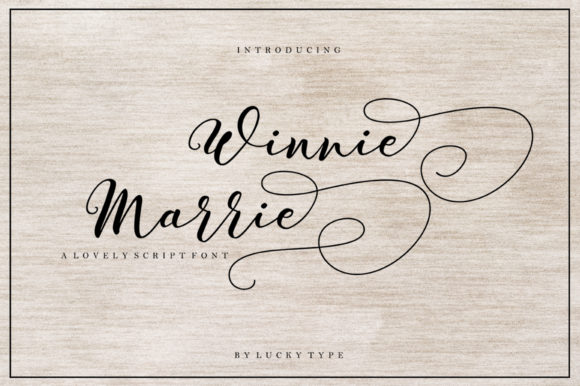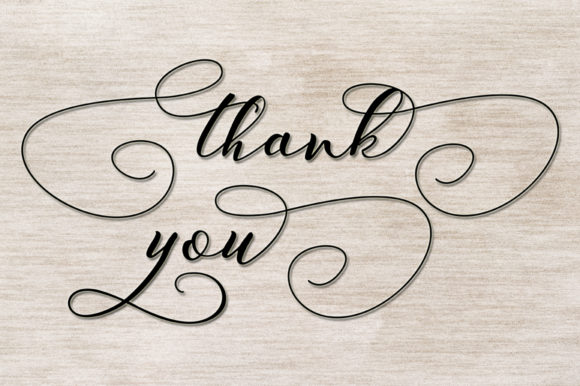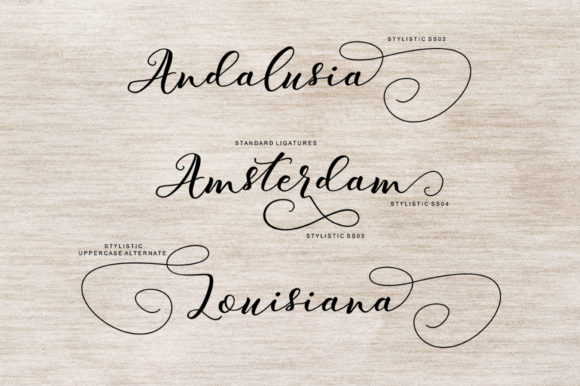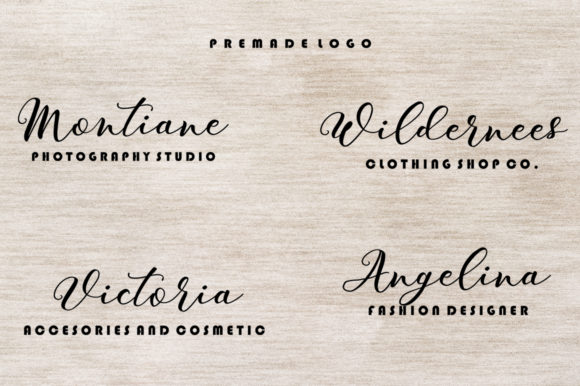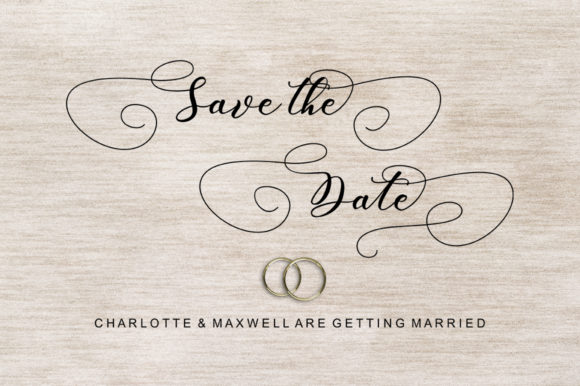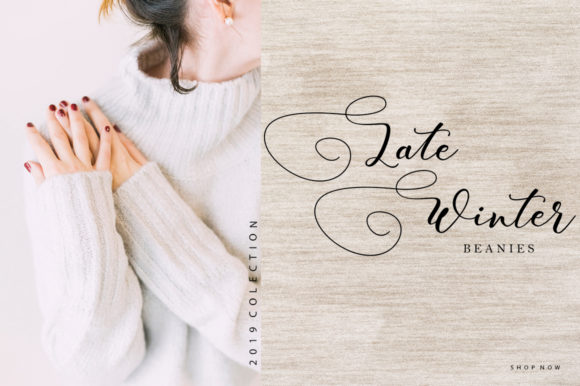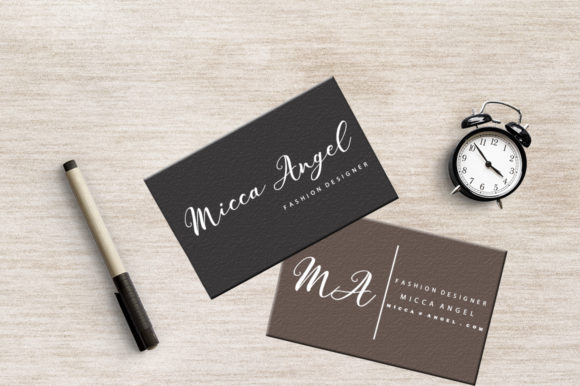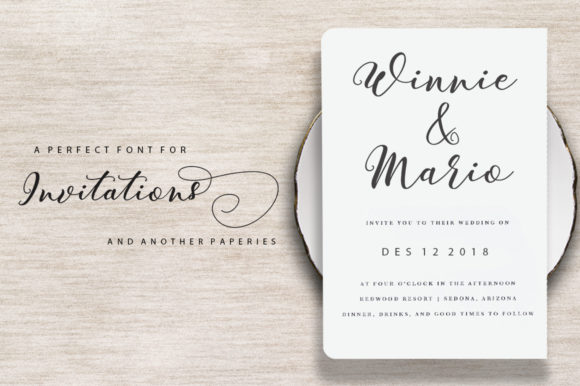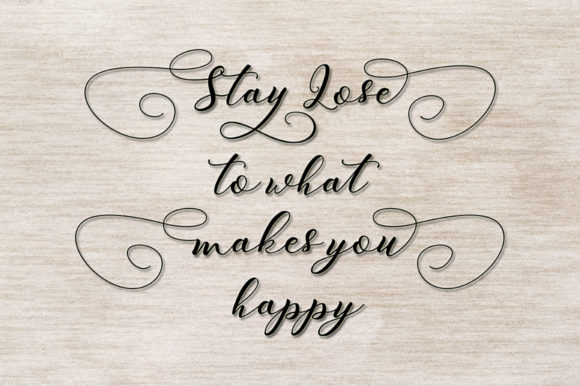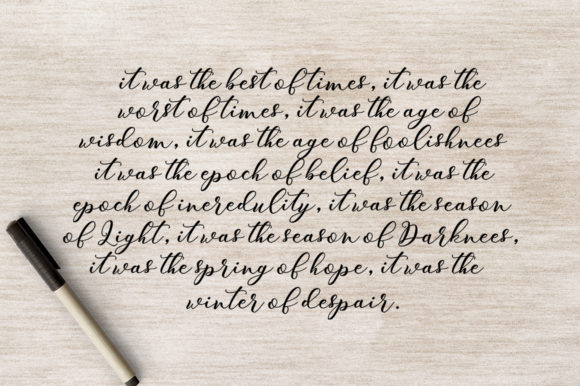
Winnie Marrie Font
About Winnie Marrie Font
The Winnie Marrie is a new modern script font. It has an irregular baseline and a trendy and feminine style.
It can be used for wedding invitations, thank you cards, quotes, logos, business cards, and every other design which needs an elegant typeface.